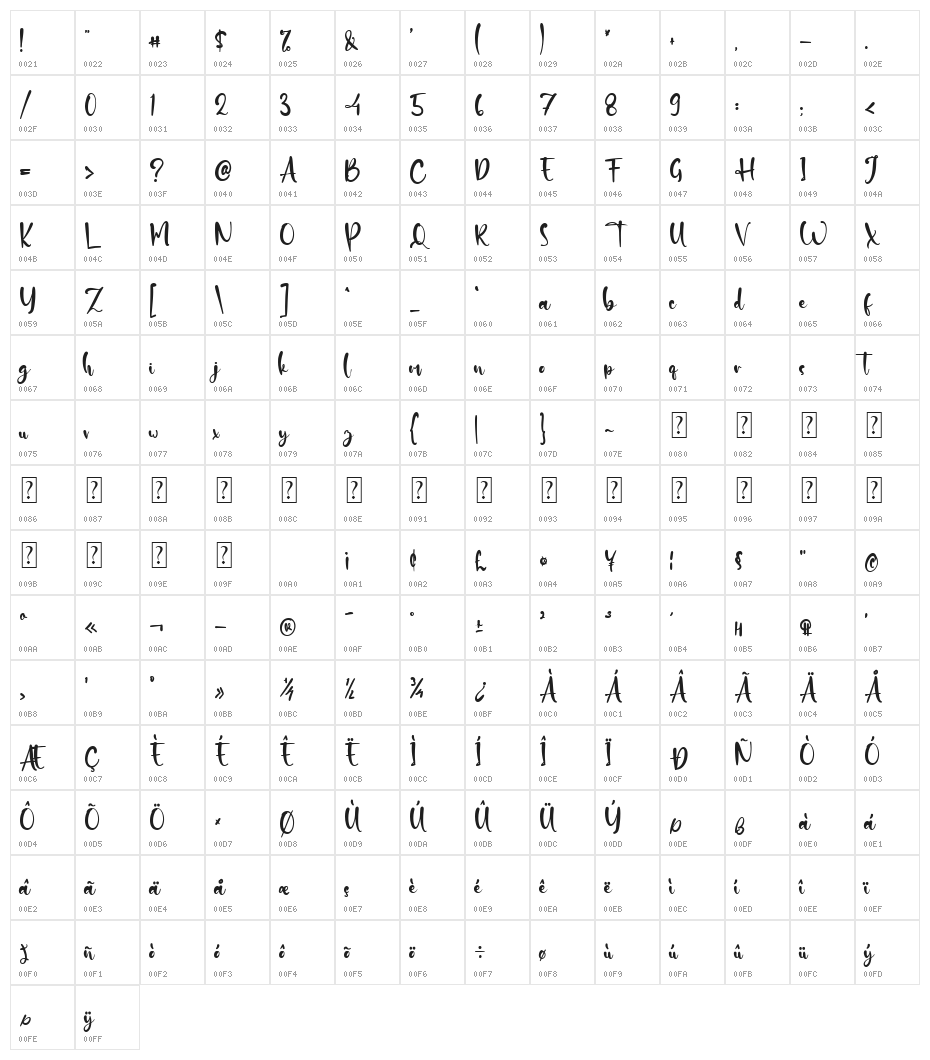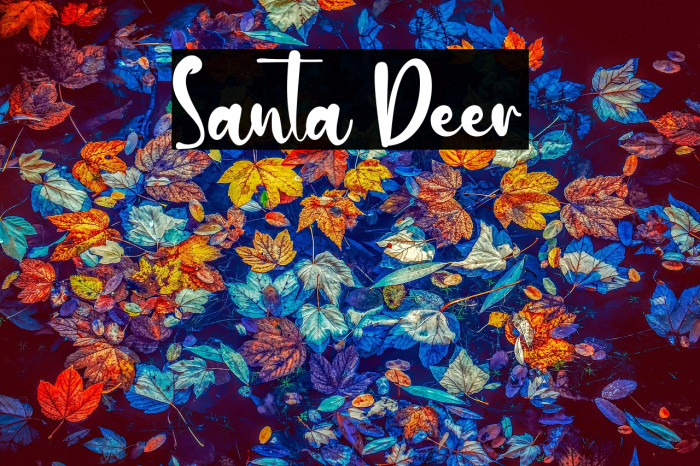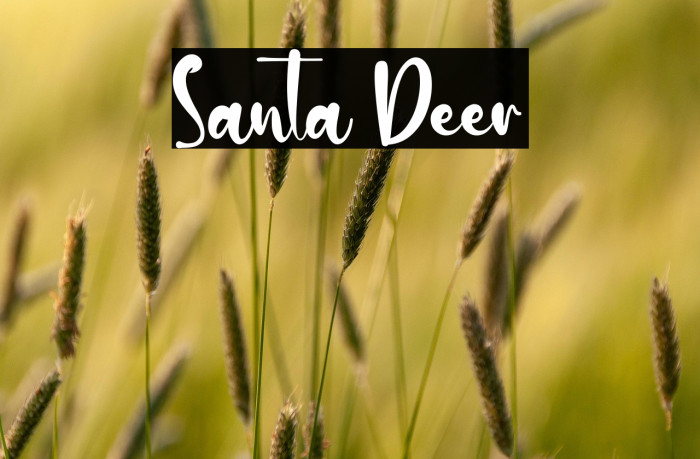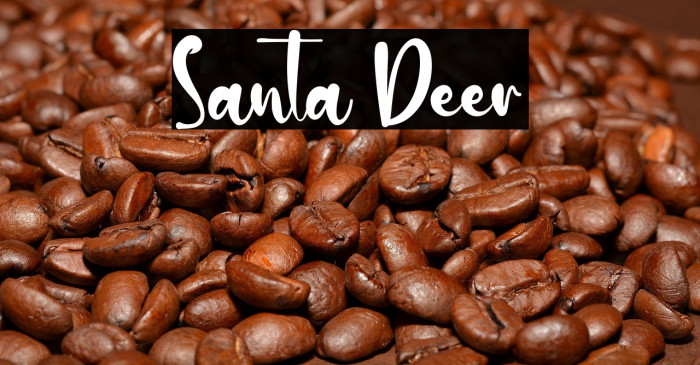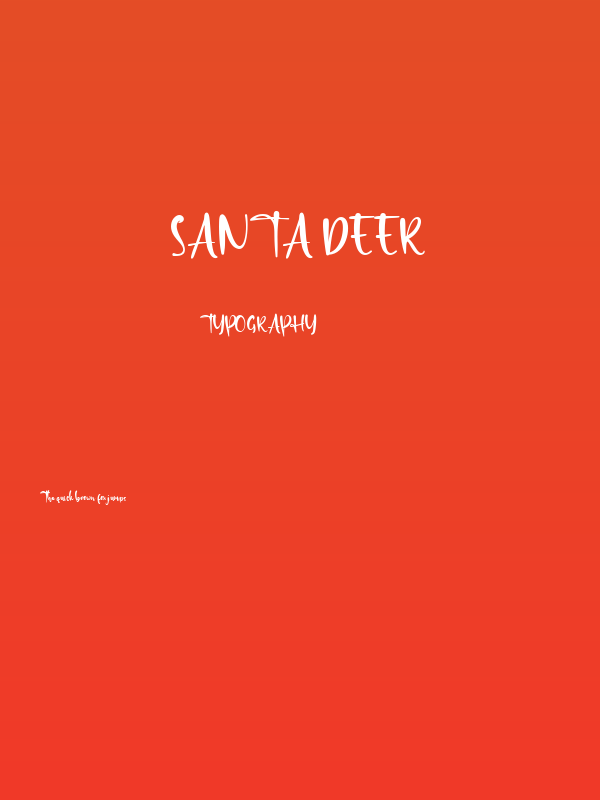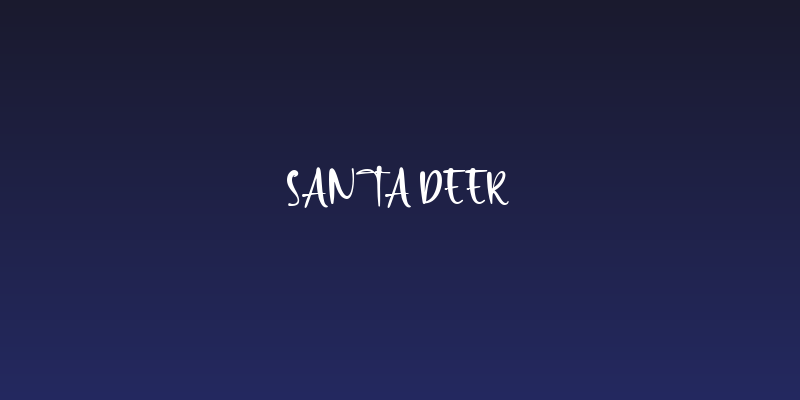
Santa Deer Font
Santa Deer Description
This font features a playful and whimsical handwritten style, characterized by its flowing and dynamic letterforms. The uppercase letters are bold and expressive, with a slight slant that adds to their lively appearance. The lowercase letters maintain a consistent style, with loops and curves that enhance the font's overall charm. The numerals are equally playful, with varying stroke widths that contribute to the font's unique personality. Special characters are designed to match the font's energetic style, making it suitable for creative and fun projects. The font's overall look is both modern and decorative, perfect for adding a personal touch to any design.
| Proposed Projects | Ideal for greeting cards, invitations, playful branding, and social media graphics. |